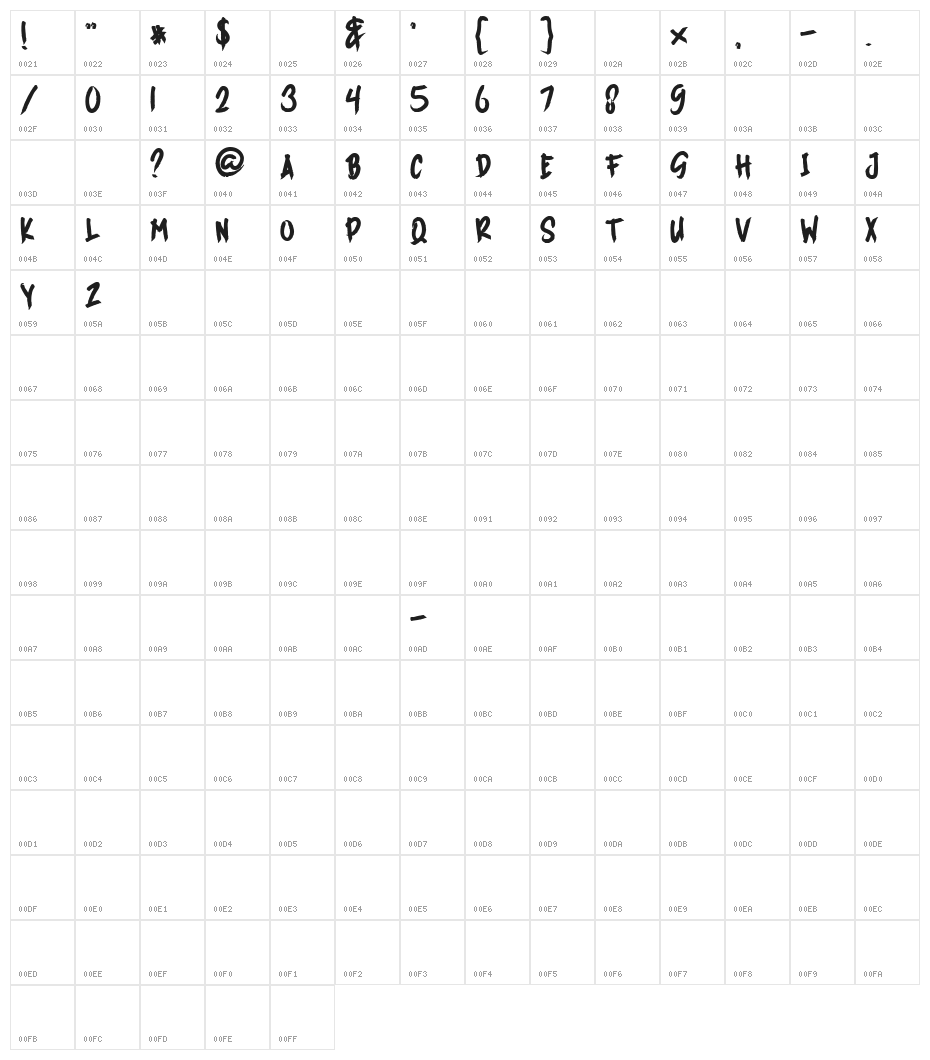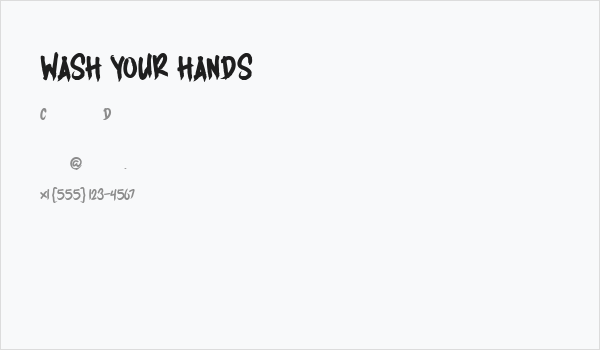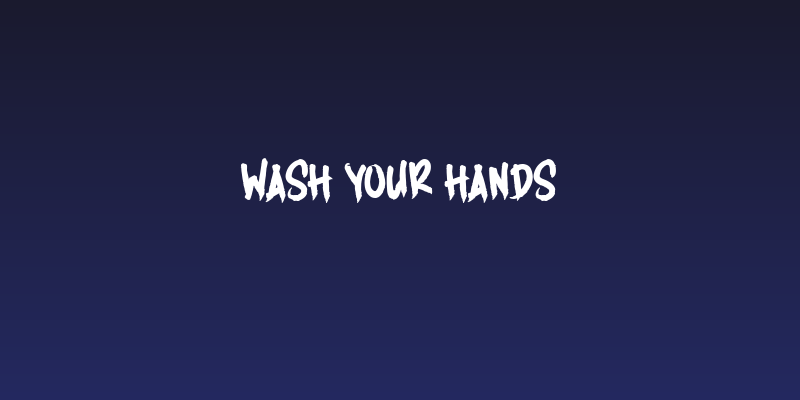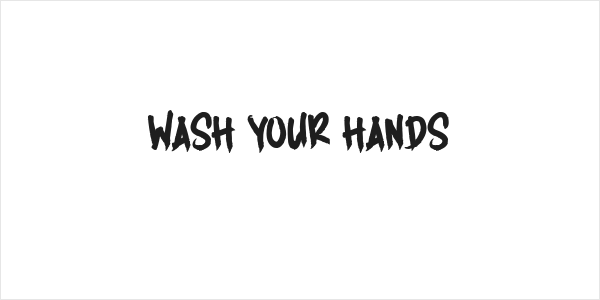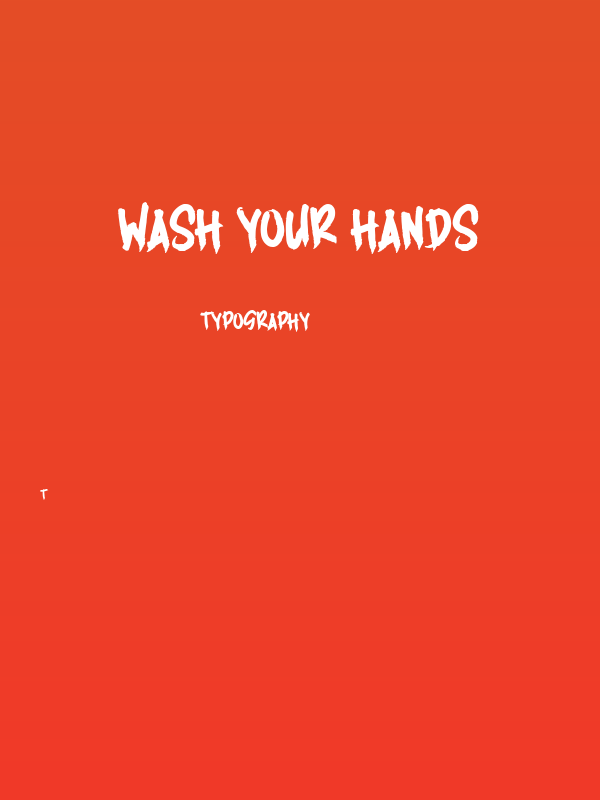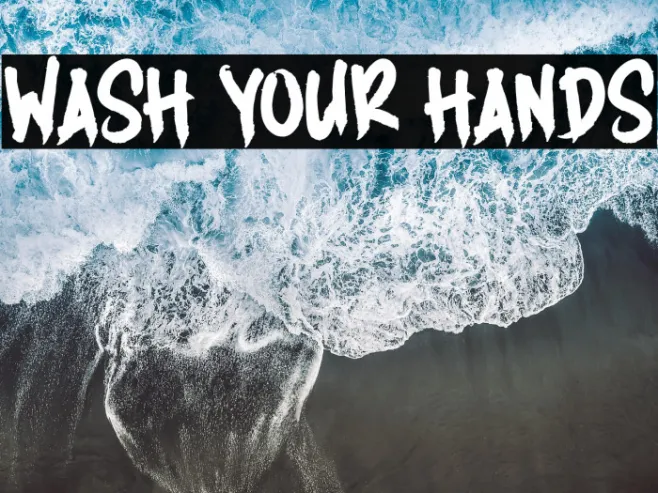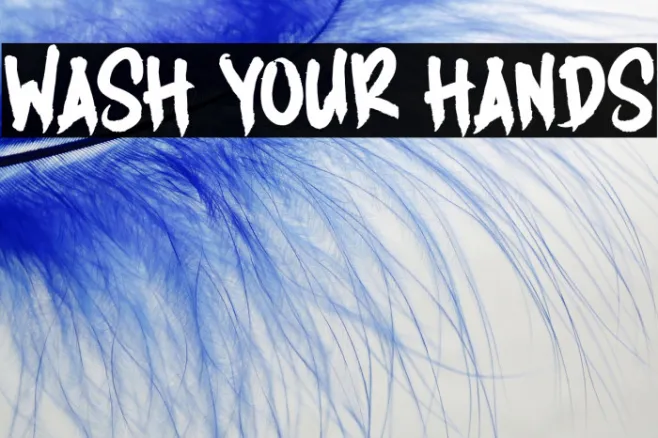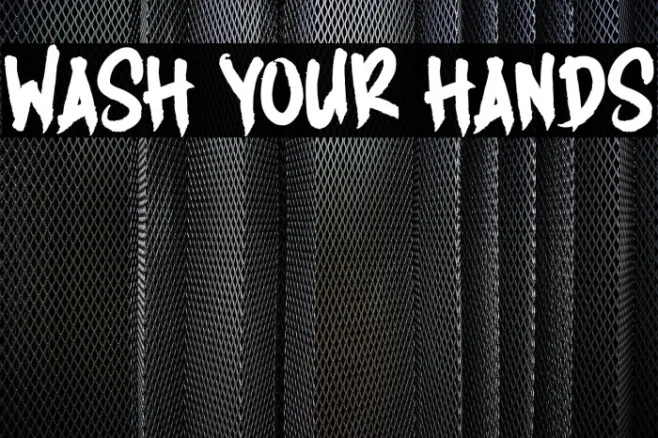
WASH YOUR HANDS Font
WASH YOUR HANDS Description
This font features a bold, energetic style with a hand-painted appearance. The uppercase letters are robust and dynamic, with a slightly irregular baseline that adds to its casual and lively feel. The numbers and special characters maintain this playful aesthetic, making the font suitable for projects that require a personal touch. The strokes are thick and expressive, giving the font a strong presence. The overall look is informal yet impactful, ideal for creative and artistic applications.
| Proposed Projects | Perfect for posters, branding, social media graphics, and any project that needs a bold, artistic touch. |